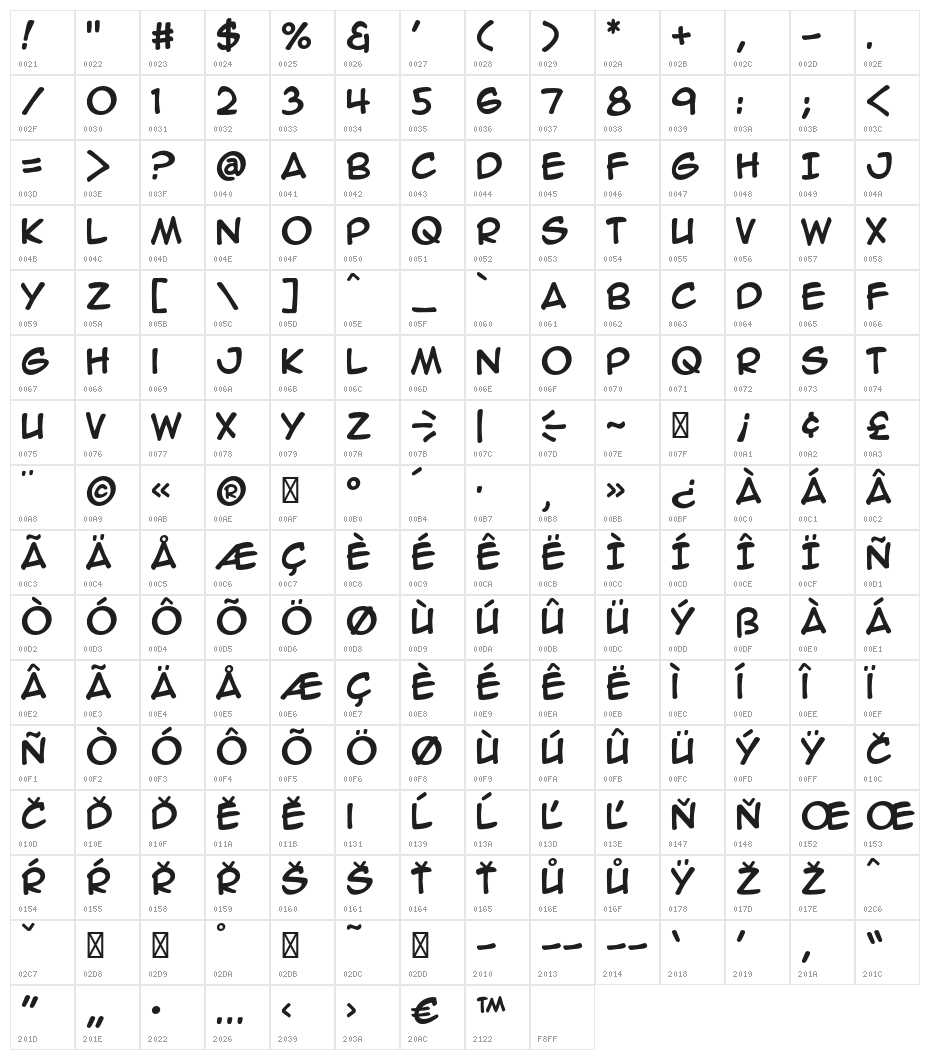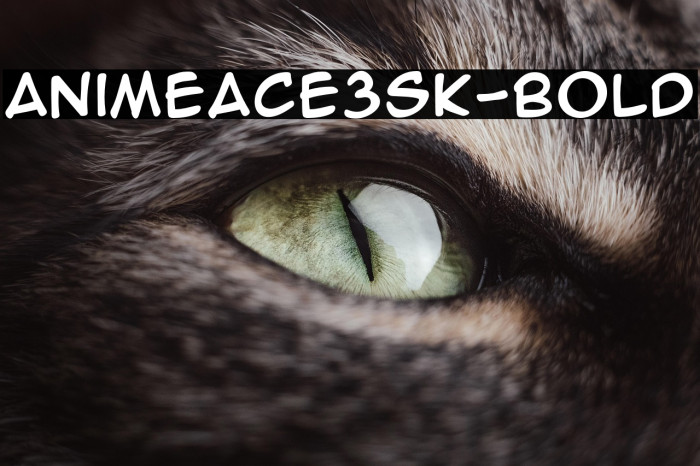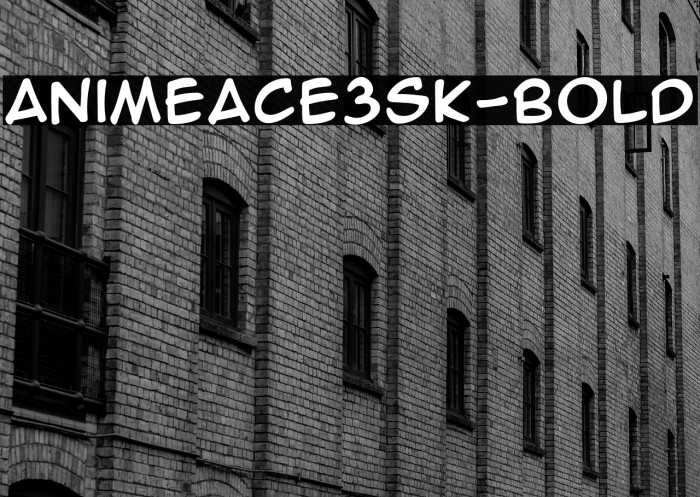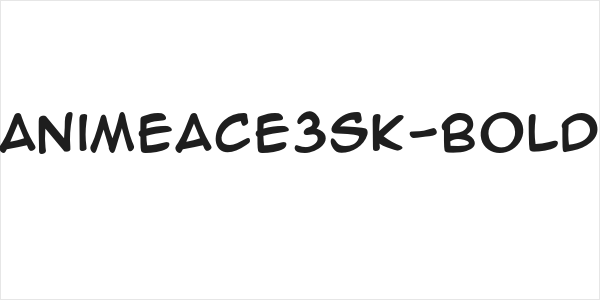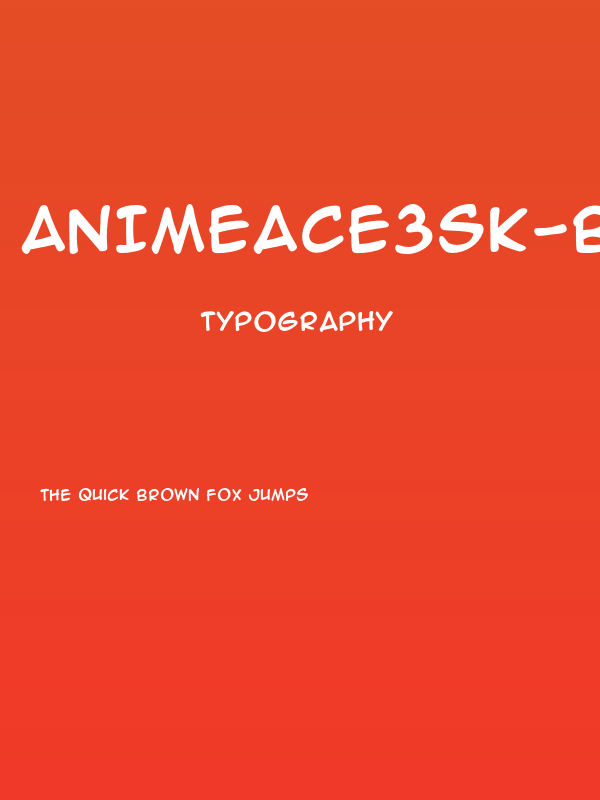
AnimeAce3SK-Bold Font
AnimeAce3SK-Bold Description
This playful and bold font features rounded, cartoon-like characters that convey a sense of fun and energy. The letters are slightly slanted, giving them a dynamic appearance, while the thick strokes ensure high visibility and impact. The font maintains a consistent weight throughout, with smooth curves and a casual, handwritten style. It includes a full set of uppercase and lowercase letters, numerals, and a variety of special characters, making it versatile for various design needs. The overall look is informal and approachable, suitable for creative and lighthearted projects.
| Overall Style | Playful, Casual, Fun |
| Proposed Projects | Ideal for comic books, children's books, playful branding, posters, and any project requiring a fun and energetic typeface. |